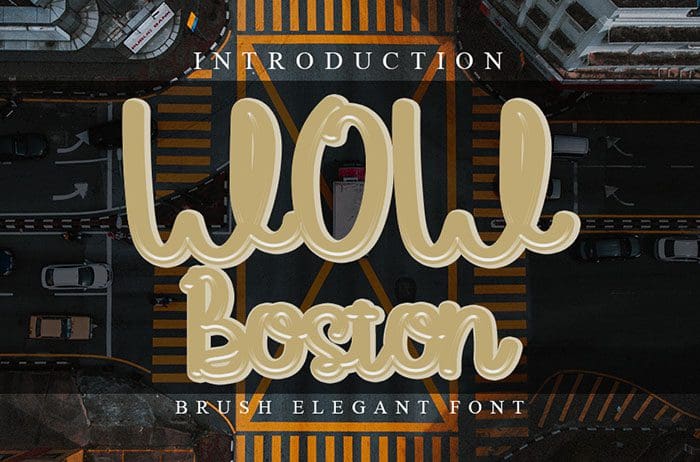
WoW Boston Handwritten Font
WoW Boston is a unique handwritten font, carefully handcrafted to become a true favorite. Its casual charm makes it appear wonderfully down-to-earth, readable and, ultimately, incredibly versatile. This font will look outstanding in any context, whether it’s being used on busy backgrounds or as a standalone headline! Designed this font by Inermedia Studio. You can also search more free Handwritten Fonts.